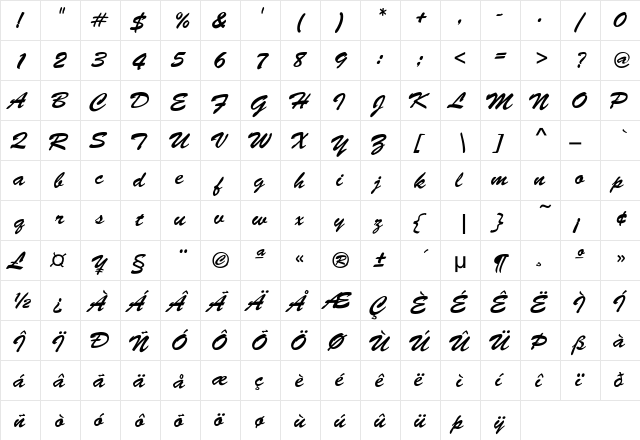
BrushScript-Normal-Italic Regular Font Preview
BrushScript-Normal-Italic Regular
Design Context for BrushScript-Normal-Italic Typeface
BrushScript-Normal-Italic brings a calligraphic fluidity to the page — its connecting strokes and expressive curves give it an unmistakably human quality.
Font Pairing: Combine BrushScript-Normal-Italic with a simple geometric sans for maximum contrast — the tension between flowing curves and clean structure is a classic typographic pairing.
Pro Tip: Pair BrushScript-Normal-Italic with a clean sans-serif for supporting text. The contrast between fluid script and geometric structure creates an elegant typographic hierarchy.